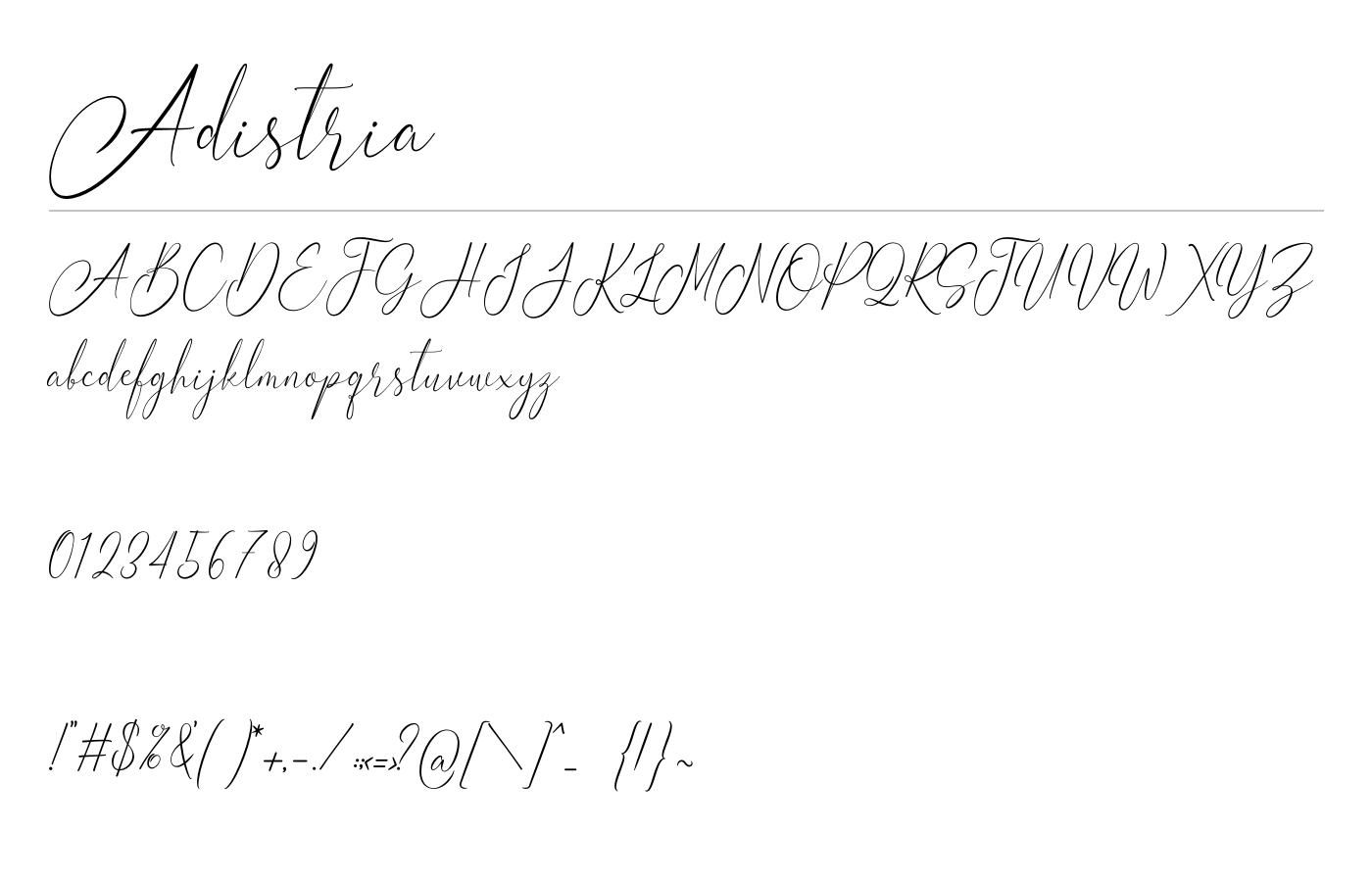
Adistria is a delicate, elegant script font characterized by its fine, flowing lines and graceful, handwritten style. Its slender letterforms and high contrast strokes give it a sophisticated and airy feel, making it ideal for invitations, branding, and projects that require a touch of refinement and charm. This font works beautifully in contexts where a personal yet stylish impression is desired.
Adistria Font